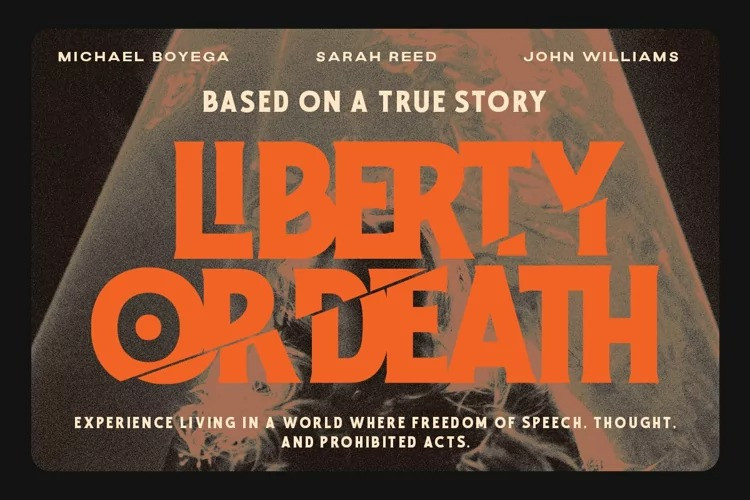
Royal Loudes Font
Royal Loudes Font is a top-of-the-line display font that commands attention. Its impeccable quality is evident in its flawless execution, with each letter carefully crafted to perfection. Available in three unique styles – regular, rough, and stamp – this font offers a dynamic range of options to suit any design need, especially in various formal forms such as invitations, labels, logos, magazines, books, greeting / wedding cards, packaging, fashion, make up, stationery, novels, labels or any type of advertising purpose.